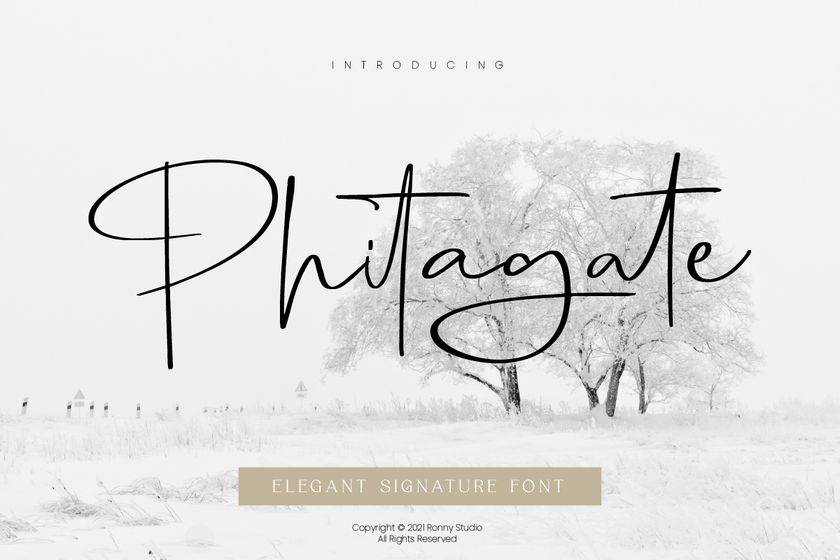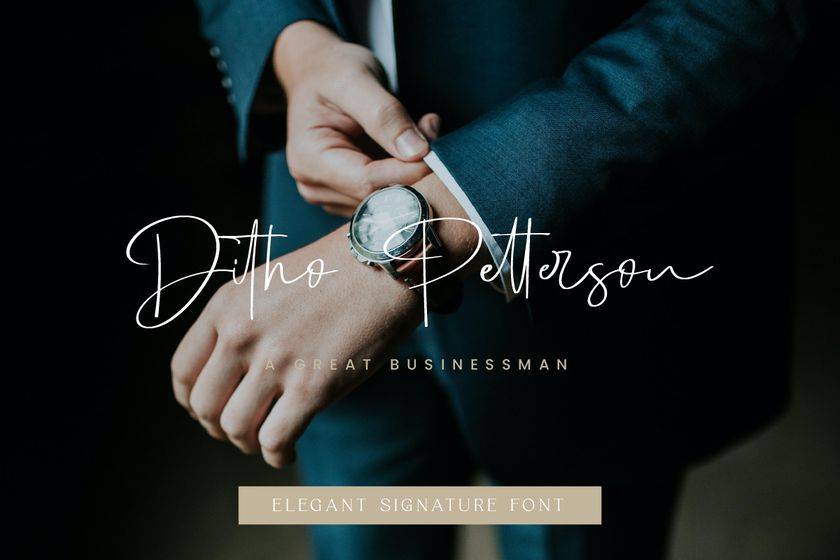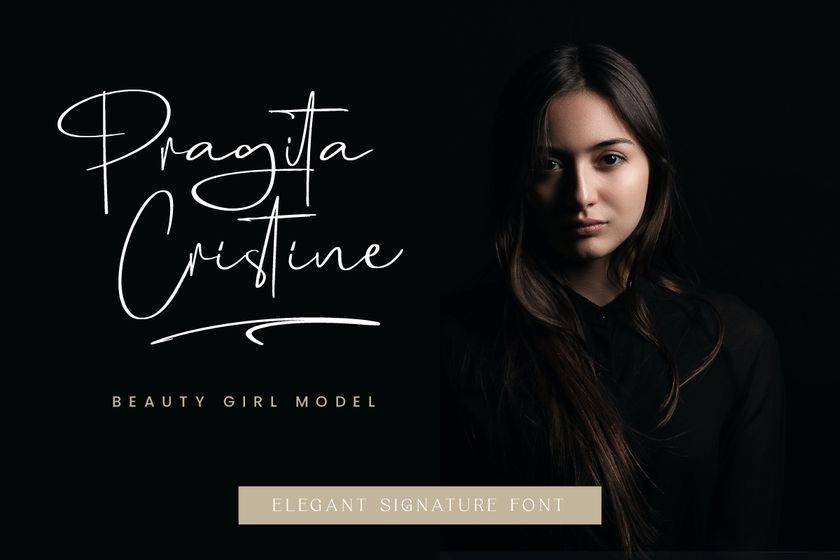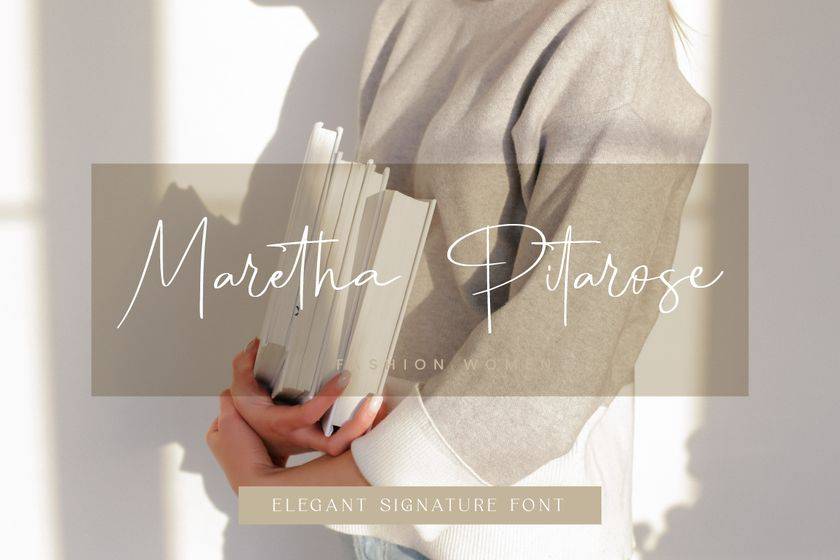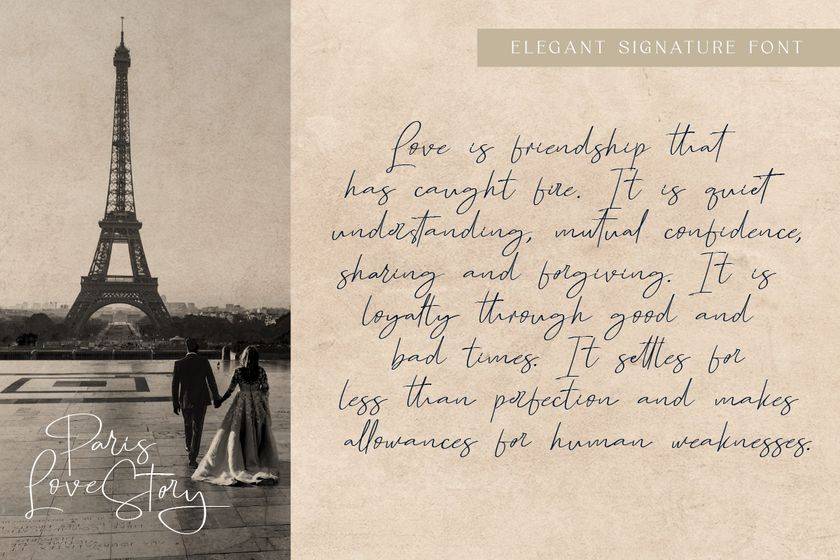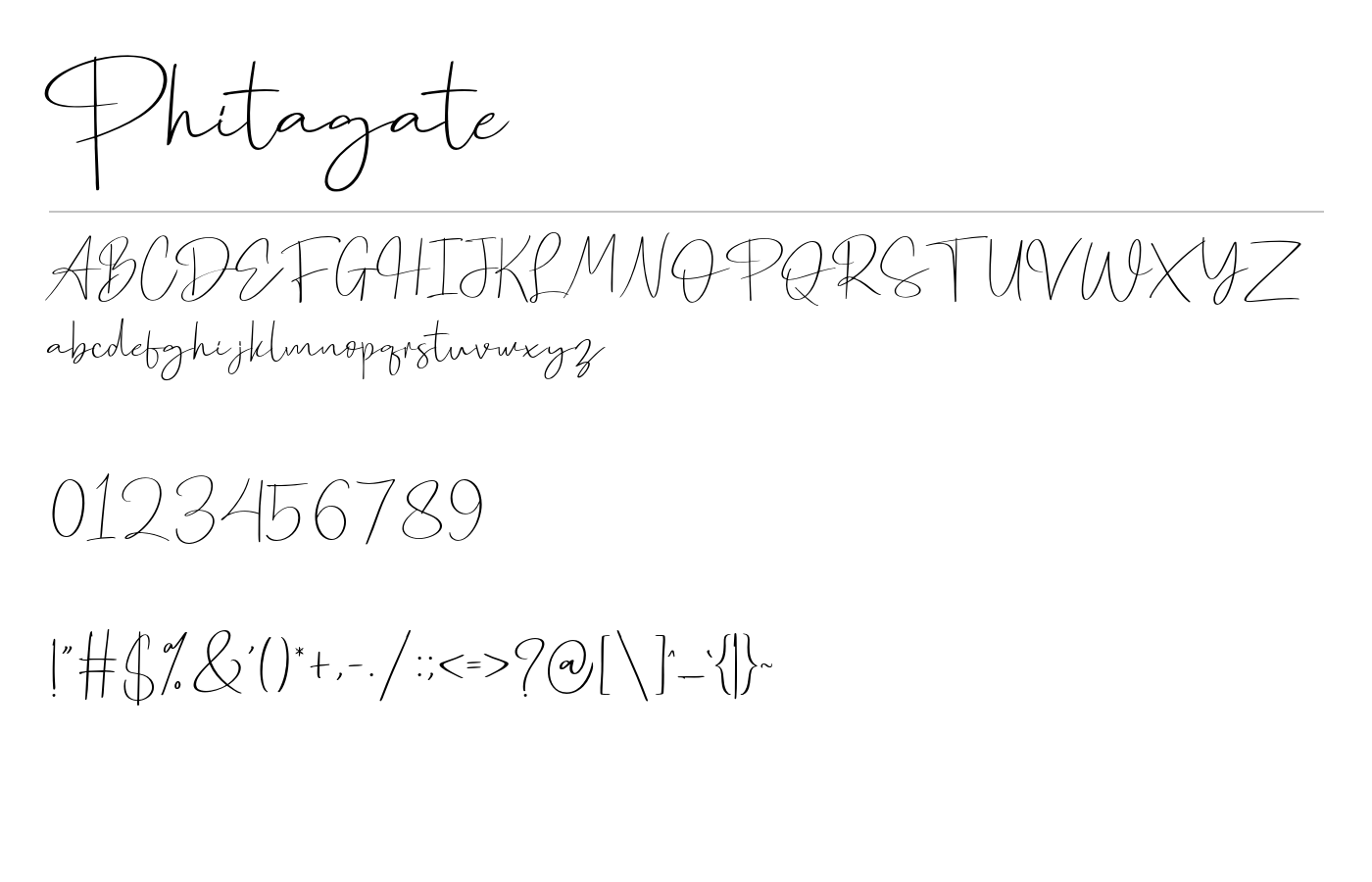
Phitagate is a delicate, handwritten script font characterized by its thin, flowing strokes and elegant, casual style. Its tall, slender letterforms with subtle loops and smooth curves evoke a personal, artistic feel, making it ideal for creative branding, invitations, and stylish editorial uses. This font’s refined yet approachable personality works well for projects seeking a modern, sophisticated touch with a handcrafted vibe.
Phitagate Font
About Phitagate Font
| Font family | Phitagate Font |
| Release date | 2022-03-04 |
| Designer | Rony Rizki Jaya |